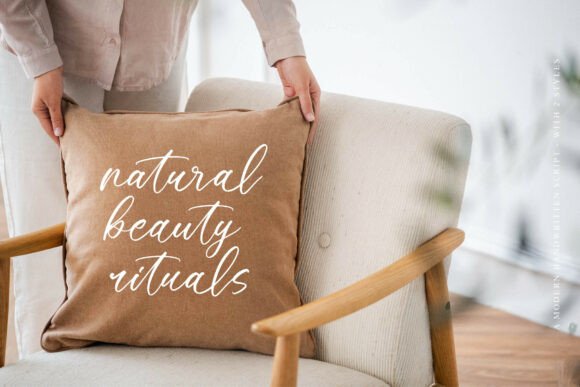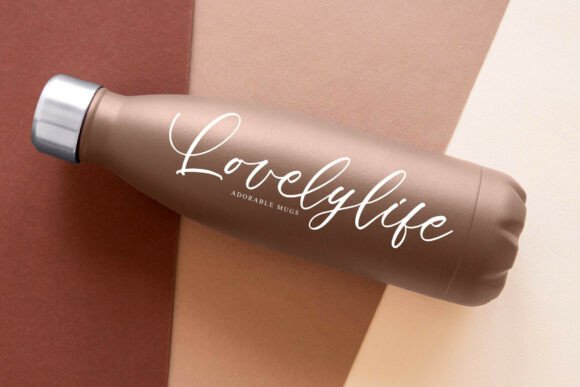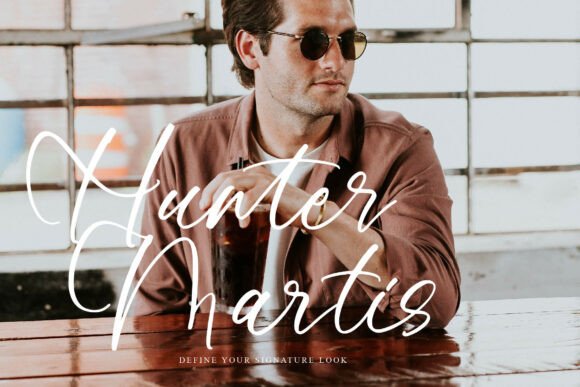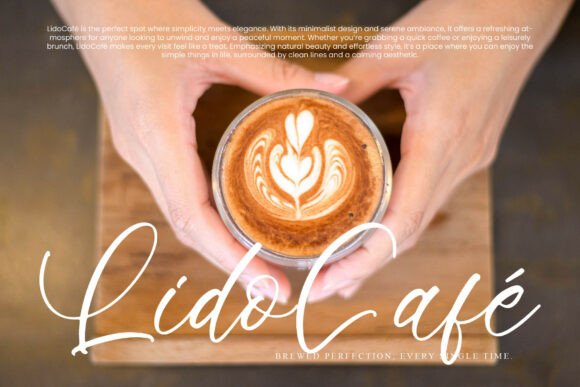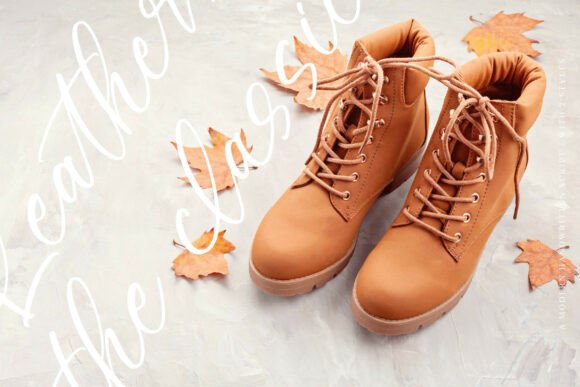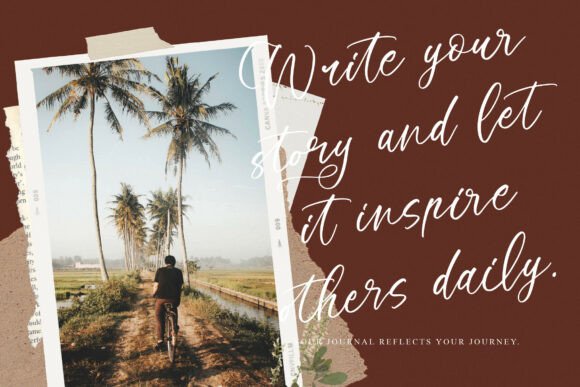
Introduction to Lively Violet Font
Have you ever stared at a blank canvas, trying to bring your creative vision to life? As designers, we’ve all been there – the blank page, the cursor blinking, waiting for inspiration to strike. But what if you had the perfect tool to spark that creativity? Enter the Lively Violet Font, a stunning handwritten font that’s about to become your new go-to design resource.
With its elegant strokes and stylish curves, the Lively Violet Font is a high-quality addition to any designer’s toolkit. Whether you’re working on a logo, social media graphics, or lifestyle branding project, this versatile font is sure to bring a fresh, youthful spirit to your work. Plus, with a transparent background and a free download option, you can experiment with this beautiful font without any restrictions.
Key Features of Lively Violet Font
- High-quality design resource ideal for creative projects, available for free download
- Lively and vibrant aesthetic, perfect for adding a pop of color to designs
- Features a transparent background, allowing for easy layering and customization
- Unique characteristic: the font’s lively feel and transparent background make it perfect for use in creative projects, such as graphic design, digital art, and more
Honest Review: Lively Violet Font
I recently had the opportunity to work with the Lively Violet Font, and I must say, it’s been a game-changer for my design projects. As a designer, I’m always on the lookout for high-quality resources that can elevate my work, and this font definitely delivers.
One of the standout features of the Lively Violet Font is its vibrant, energetic vibe, which makes it perfect for creative projects that require a playful touch. The font is available for free download, making it an excellent addition to any designer’s toolkit.
- What works well: ✨ The font’s transparent background makes it easy to use on any design surface, and its high-quality design ensures that it looks great at any size.
- What works well: ✨ The font’s versatility makes it suitable for a wide range of design applications, from logos to brochures and beyond.
That being said, there are a few limitations to consider. For example, the font may not be suitable for more formal or professional designs, where a more subdued tone is required. Additionally, the font’s bold, playful style may not appeal to all designers.
Overall, I’m thoroughly impressed with the Lively Violet Font, and I would highly recommend it to designers who are looking for a high-quality, free design resource. With its transparent background, high-quality design, and versatile style, this font is sure to be a valuable addition to any design toolkit.
The Lively Violet Font is ideal for a variety of creative projects, including blog posts, social media graphics, and marketing materials. Its transparent background and free download make it a convenient choice for designers and non-designers alike.